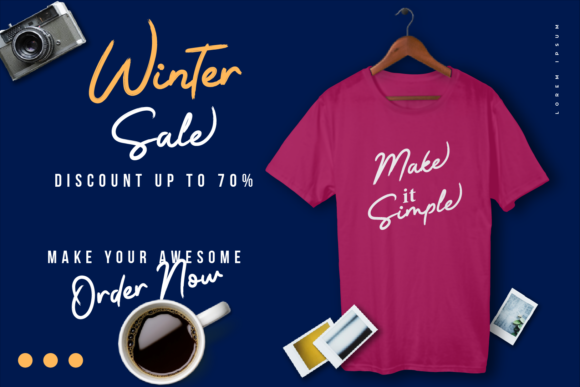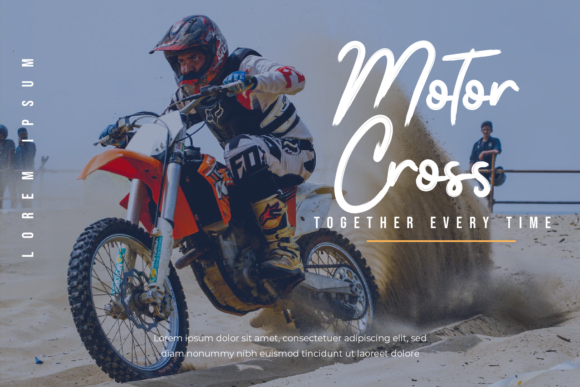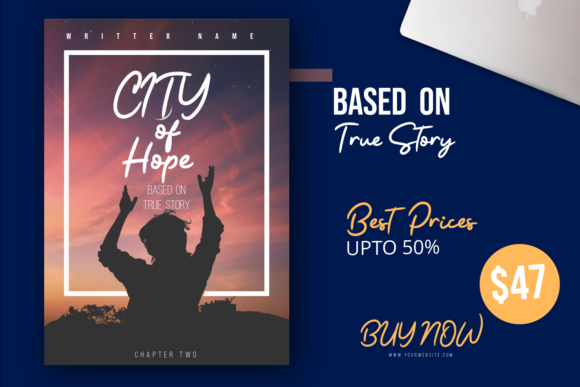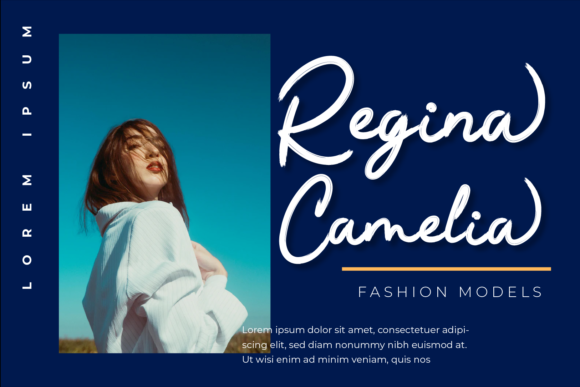
Introducing Baginda Font: The Ultimate Choice for Elegant and Versatile Designs
Are you a designer or crafter looking for a font that can elevate your creative projects to the next level? Look no further than Baginda Font, a stunning, round-lettered, and flowing handwritten font that is sure to capture your heart. With its incredibly versatile style, Baginda Font is perfect for creating a wide range of designs, from gorgeous wedding invitations and beautiful stationery art to eye-catching social media posts and more.
The Beauty of Baginda Font
Baginda Font is a masterpiece of typography, boasting a unique and elegant design that is sure to impress. Its round letters and flowing script give it a soft, romantic feel that is perfect for designs that require a touch of sophistication and whimsy. The font’s versatility is unmatched, making it suitable for a wide range of applications, from formal events to casual social media posts.
What Makes Baginda Font So Special?
So, what sets Baginda Font apart from other fonts on the market? Here are just a few reasons why designers and crafters are falling in love with this beautiful font:
- Unique and Elegant Design: Baginda Font features a distinctive and stylish design that is sure to make your designs stand out from the crowd.
- Versatile Style: Whether you’re creating wedding invitations, social media posts, or stationery art, Baginda Font is the perfect choice for any design project.
- Easy to Read: Despite its elegant and flowing script, Baginda Font is surprisingly easy to read, making it perfect for designs that require a touch of sophistication and clarity.
- Highly Customizable: With Baginda Font, you can easily customize your designs to fit your unique style and brand.
Creative Uses for Baginda Font
So, what can you create with Baginda Font? The possibilities are endless! Here are just a few ideas to get you started:
- Wedding Invitations: Create stunning wedding invitations that set the tone for a beautiful and elegant wedding.
- Stationery Art: Design gorgeous stationery art, including greeting cards, thank-you cards, and more.
- Social Media Posts: Create eye-catching social media posts that are sure to grab the attention of your followers.
- Branding and Packaging: Use Baginda Font to create custom branding and packaging that reflects your unique style and brand.
Tips for Getting the Most Out of Baginda Font
To get the most out of Baginda Font, here are a few tips to keep in mind:
- Pair with Other Fonts: Try pairing Baginda Font with other fonts to create a unique and visually appealing design.
- Use in Combination with Images: Use Baginda Font in combination with images to create stunning and effective designs.
In conclusion, Baginda Font is a beautiful and versatile font that is perfect for designers and crafters looking to elevate their creative projects. With its unique and elegant design, highly customizable style, and ease of use, Baginda Font is sure to become a favorite in your design arsenal. So why wait? Download Baginda Font today and start creating stunning designs that will leave a lasting impression!